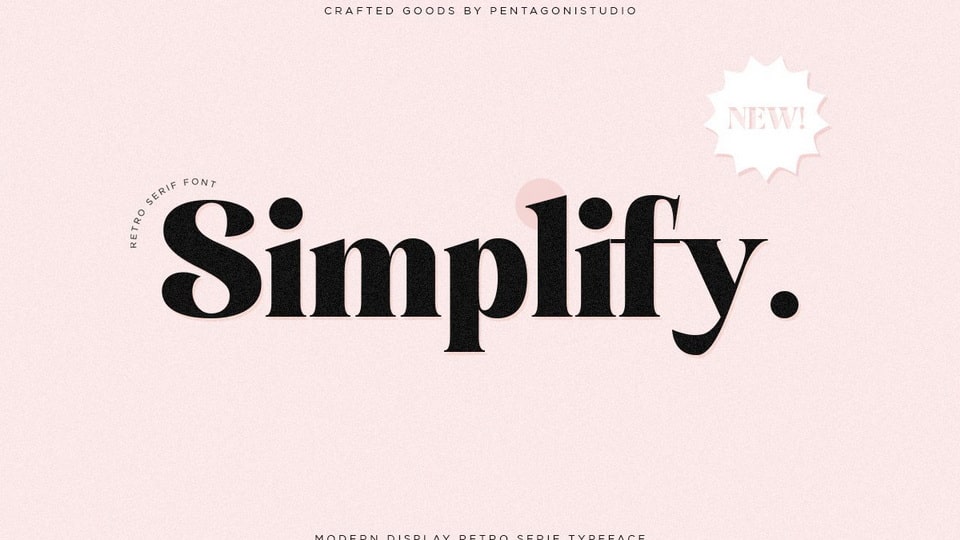
Download Simplify font, a modern and refined serif display typeface. Classy and stylish, Simplify font is suitable for a wide range of design projects.
Designer: Pentagonistudio